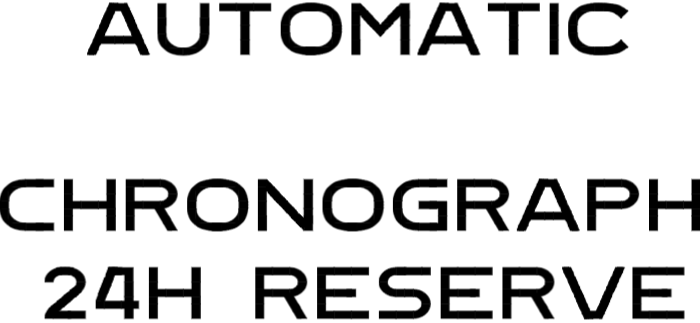
• Main thing was to mimic the shape of 4 on classic watch dials, since I could not find suitable free alternative. Then I expanded to some other typical glyphs and alternatives in lower case.